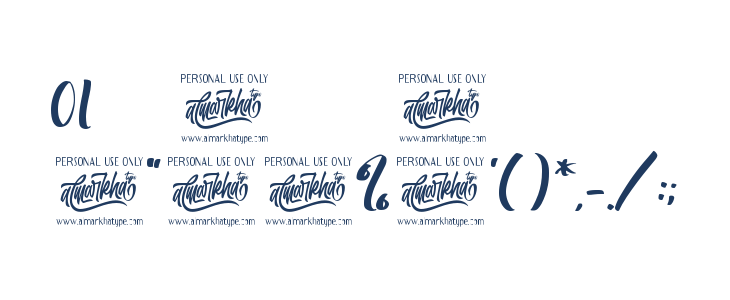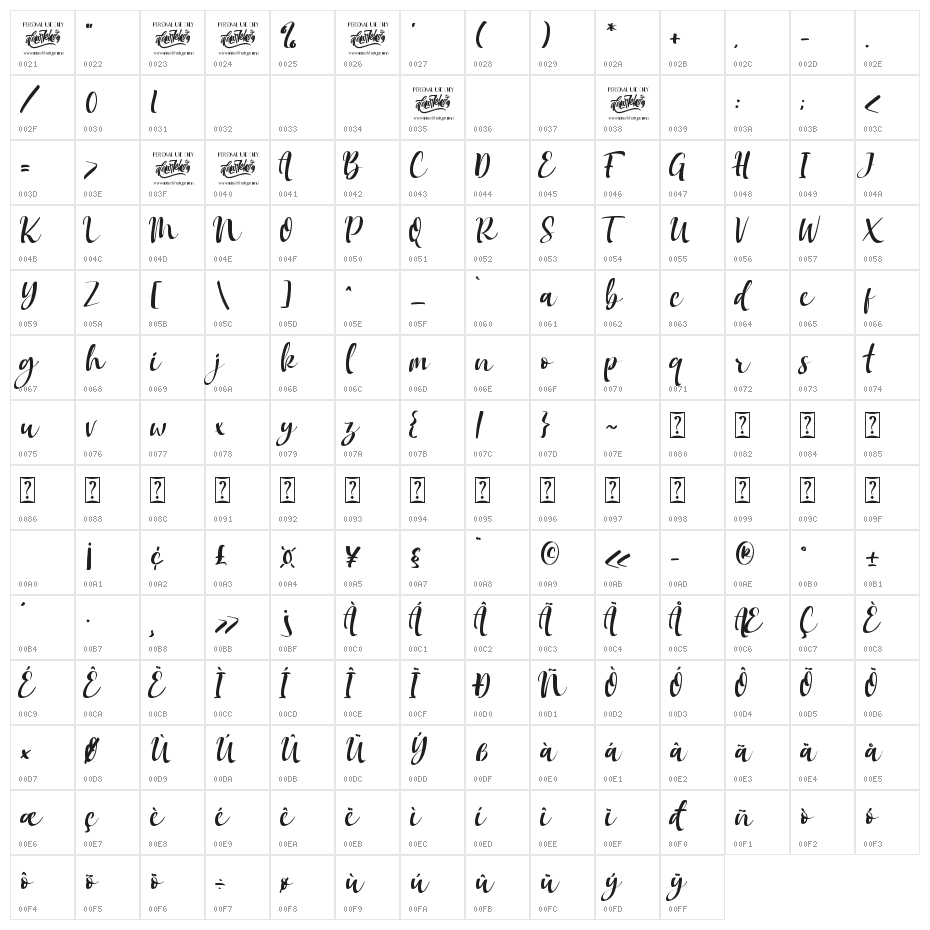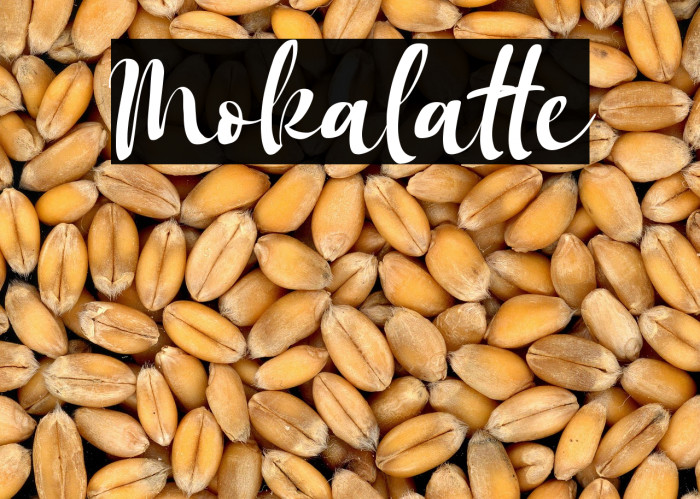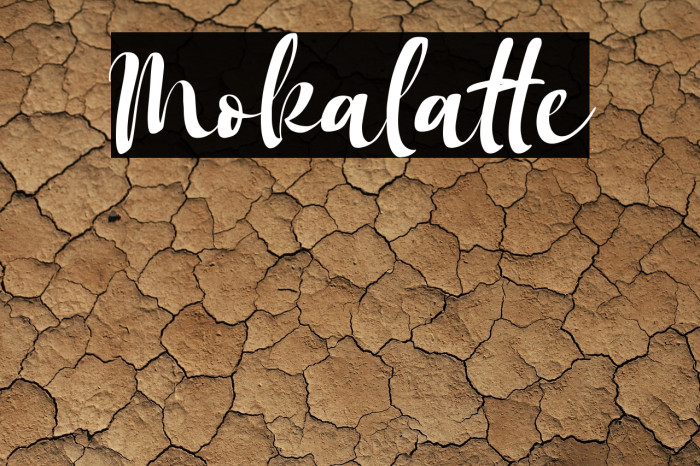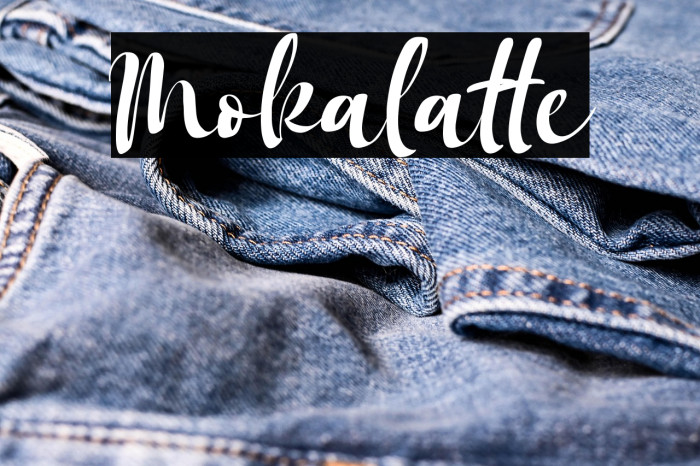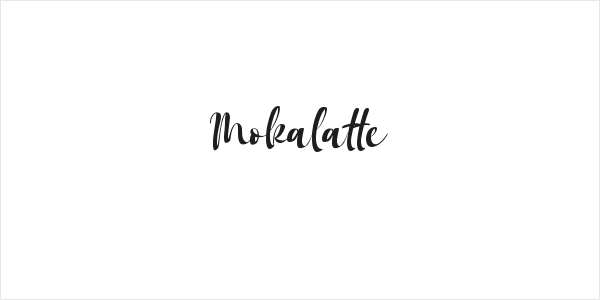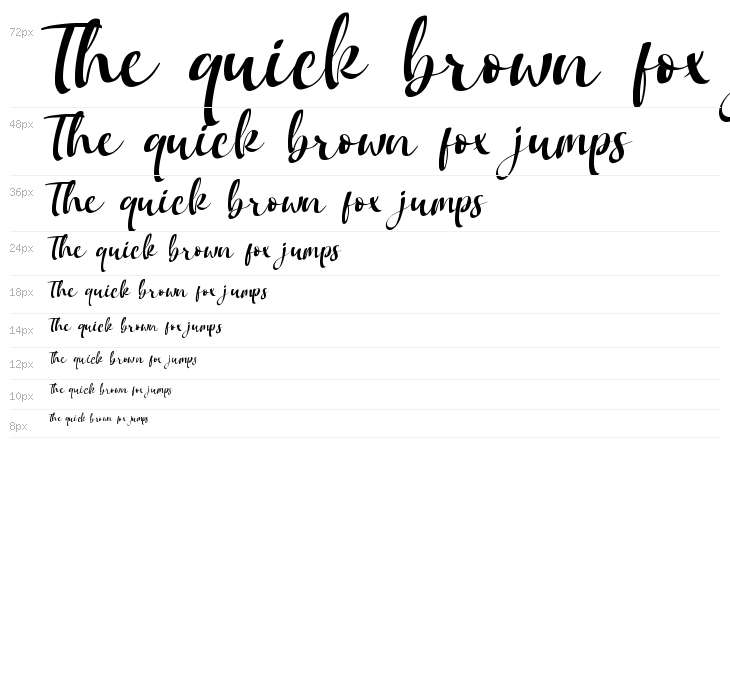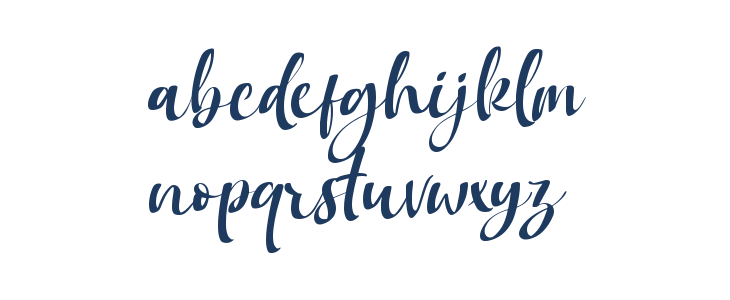
Mokalatte Font
Mokalatte Description
This font features a bold, flowing script style with a modern and artistic flair. The characters are elegantly crafted with sweeping curves and a dynamic rhythm, giving it a lively and expressive appearance. The uppercase letters are particularly striking, with exaggerated loops and flourishes that add a sense of movement and grace. The lowercase letters maintain a consistent style, complementing the uppercase with their own unique charm. The numbers and special characters are designed to match the overall aesthetic, ensuring a cohesive look across all text. This font is ideal for projects that require a personal touch or a creative, handwritten feel.